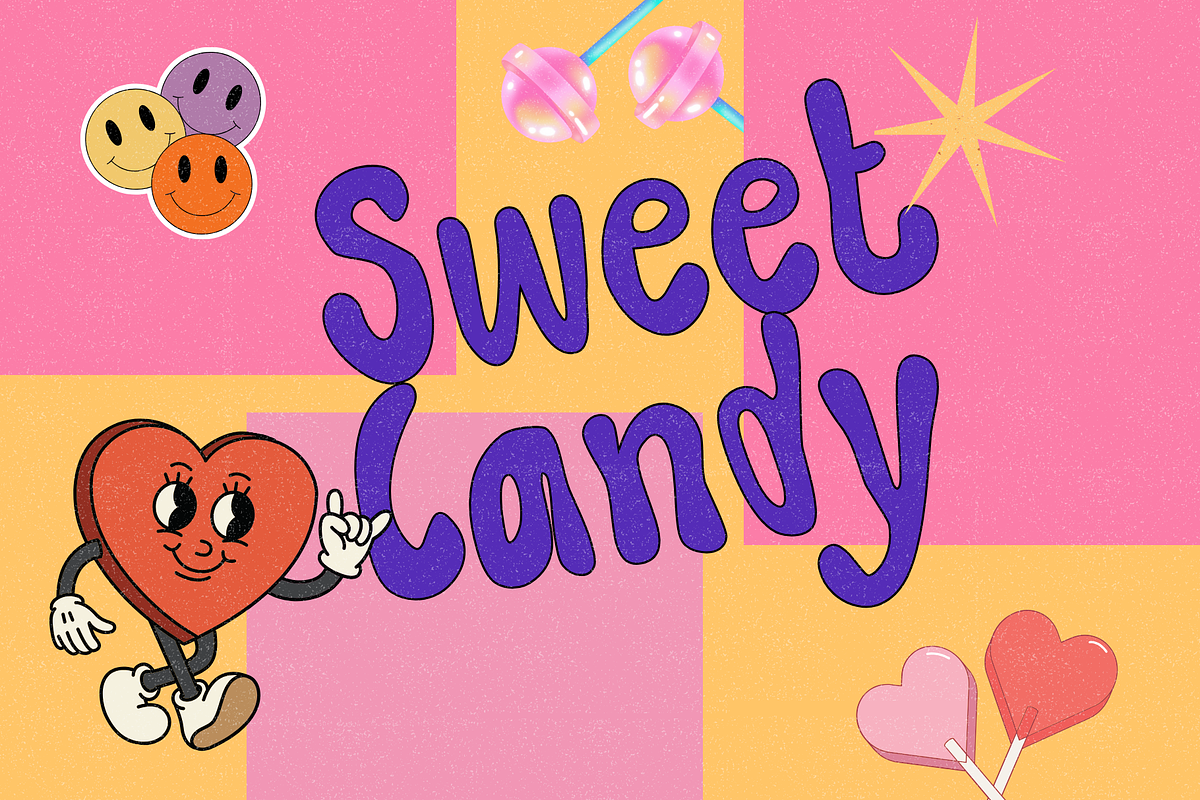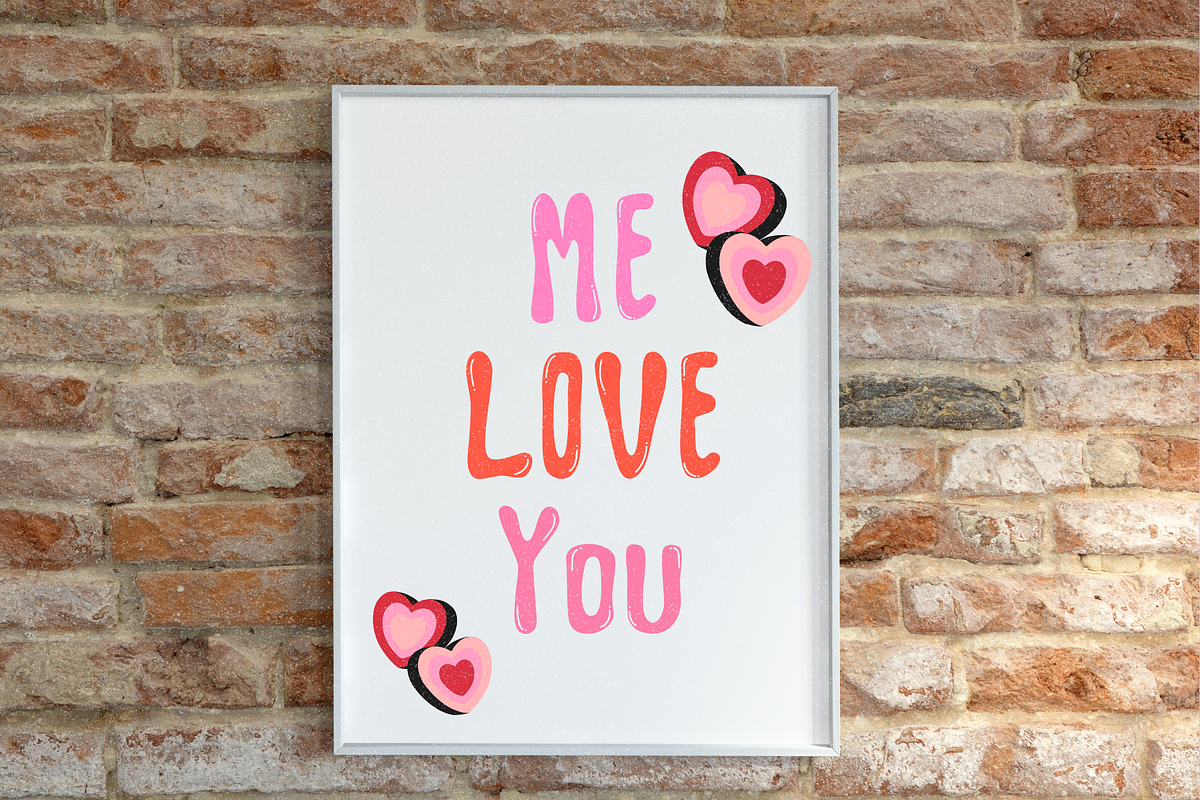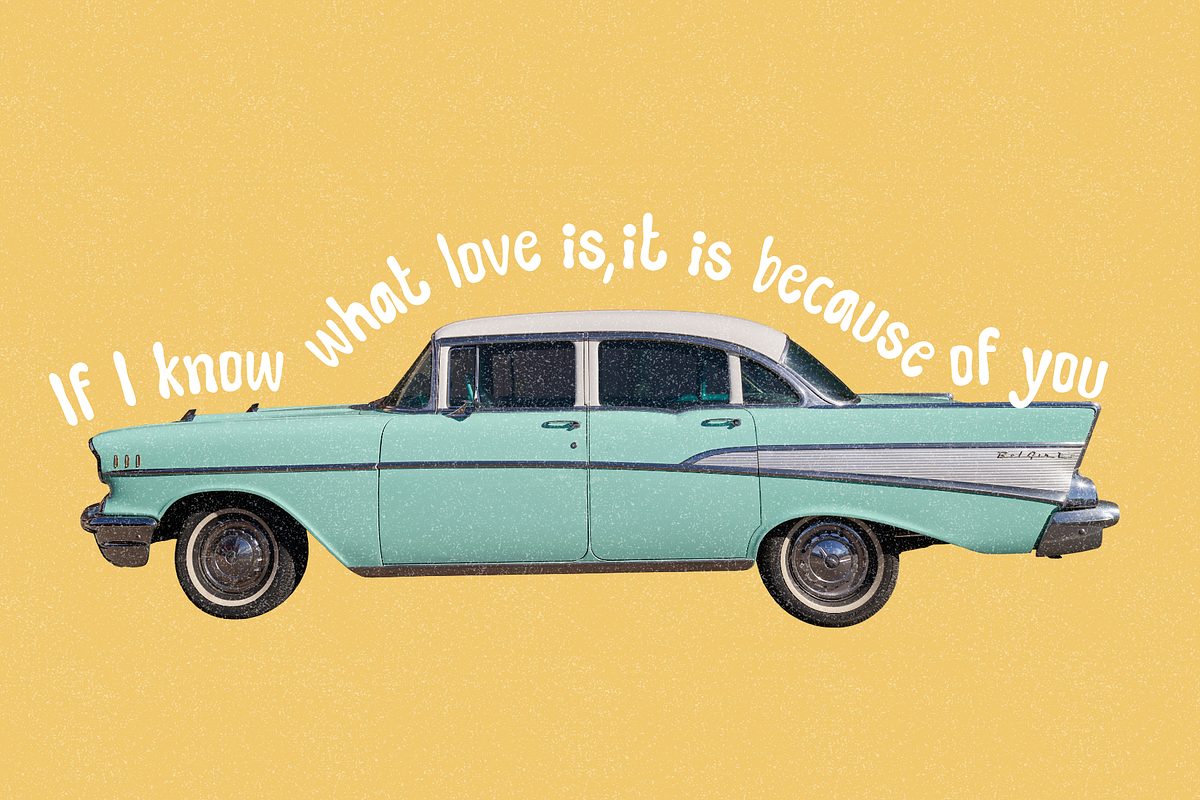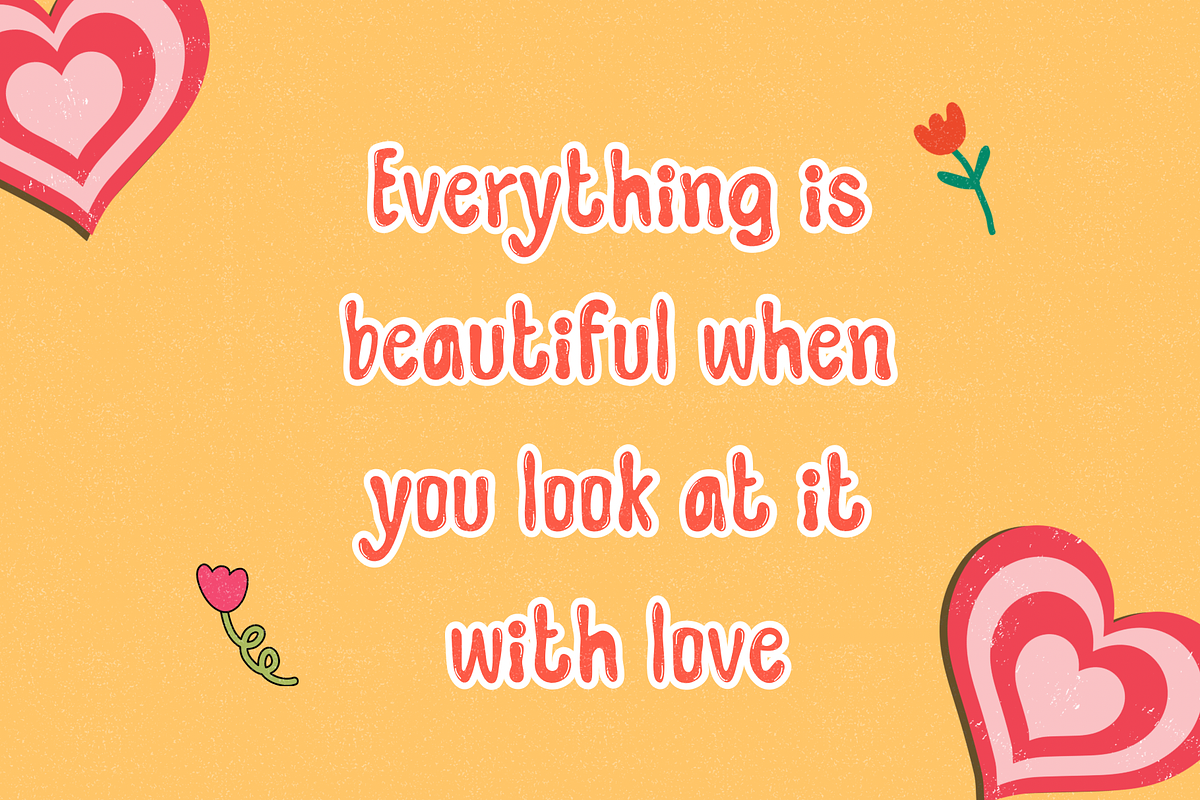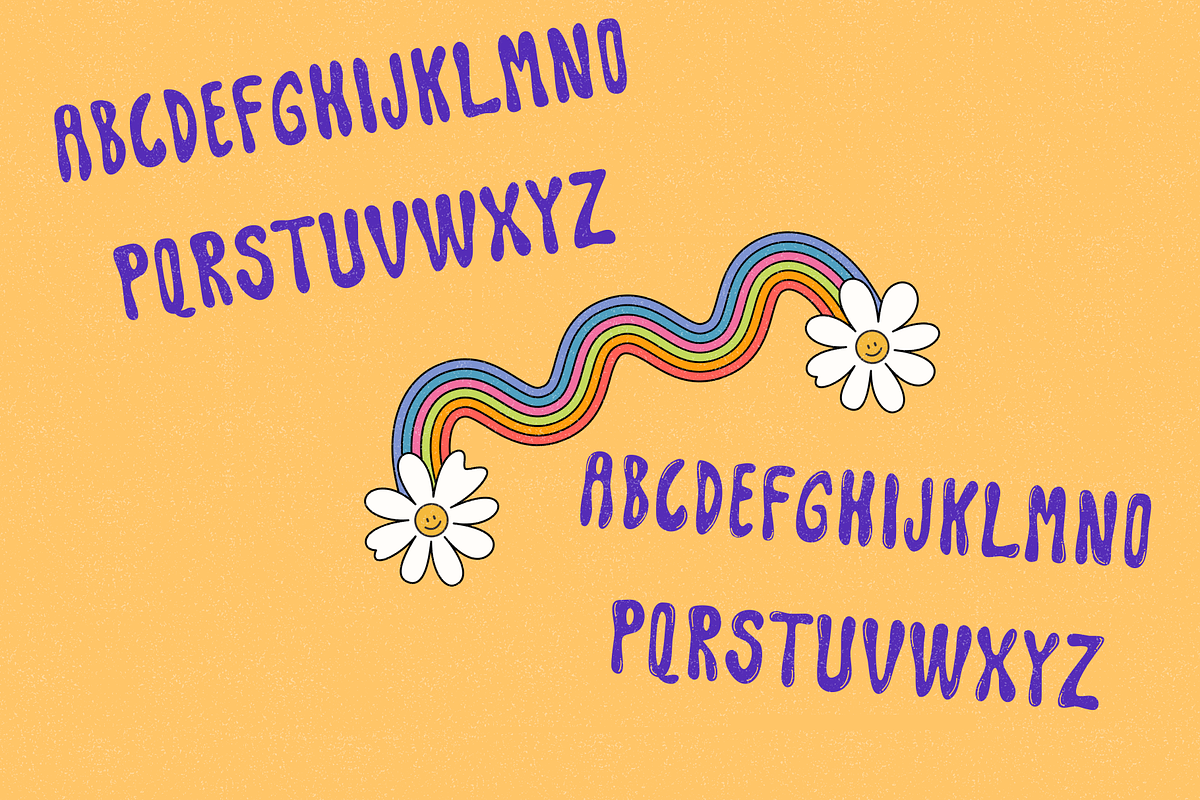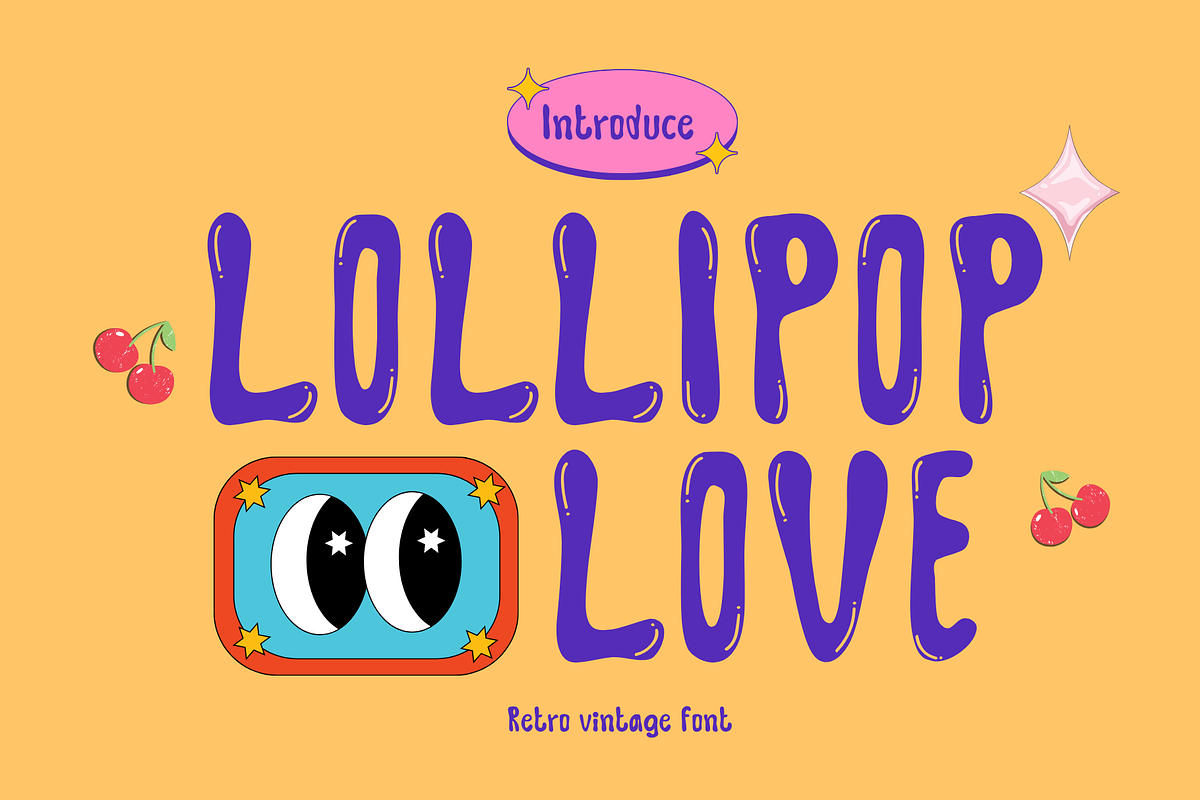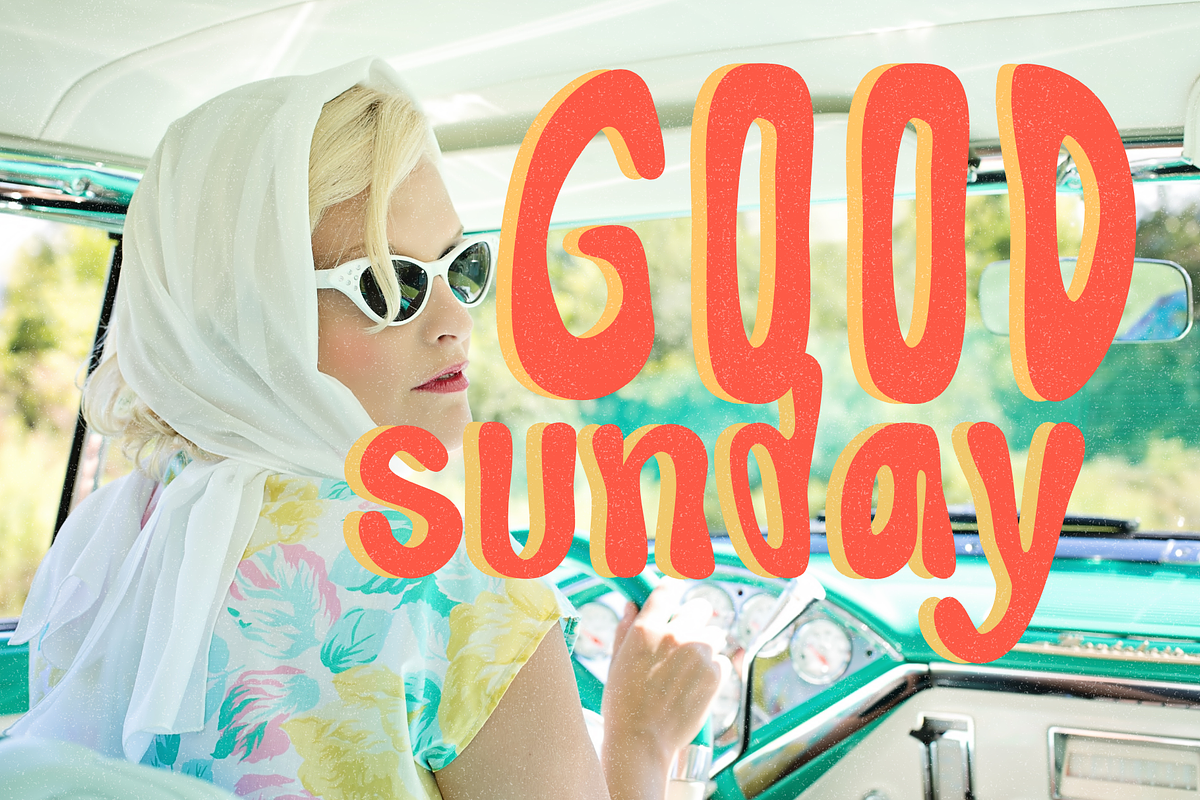
Lollipop love retro vintage fonts
"Lollipop love retro fonts with a cool style and flowing letters will undoubtedly add a touch of tenderness and warmth to your design projects! Suitable for a variety of occasions, especially during the season of love or any other time you want to infuse a cool and cute vibe into your designs.